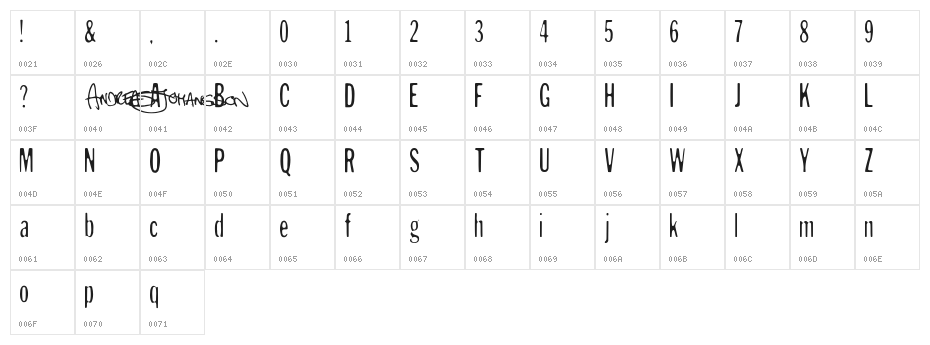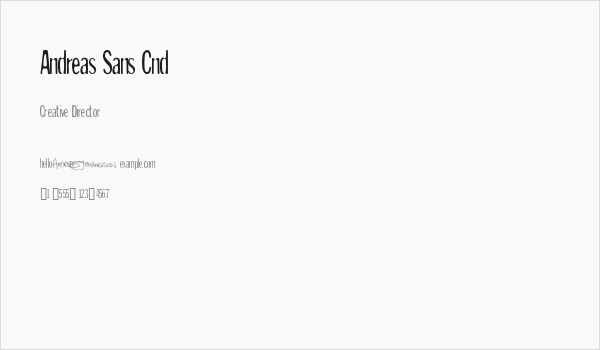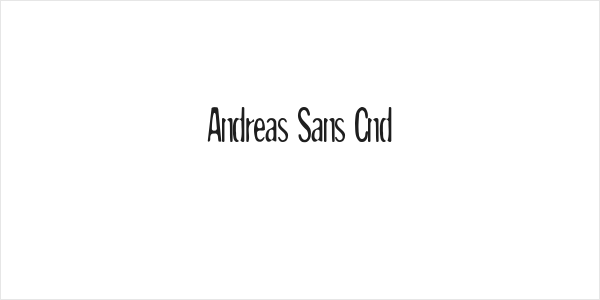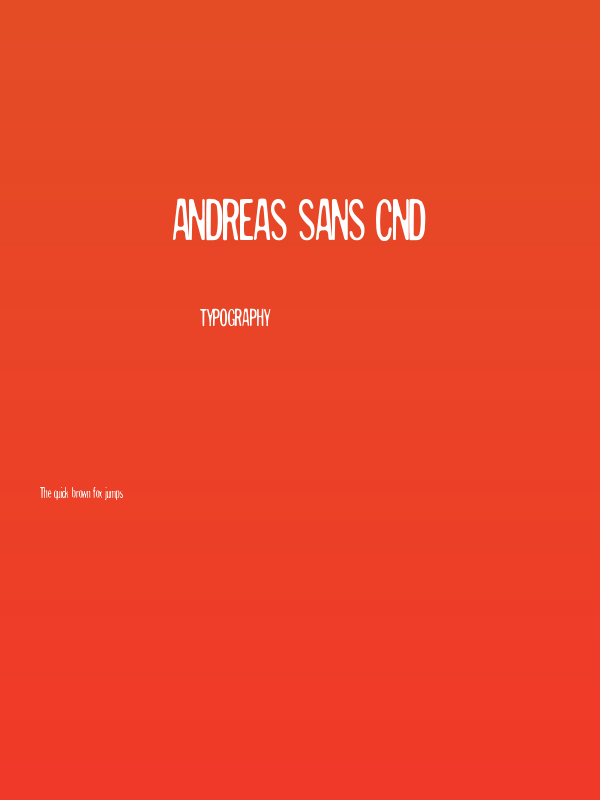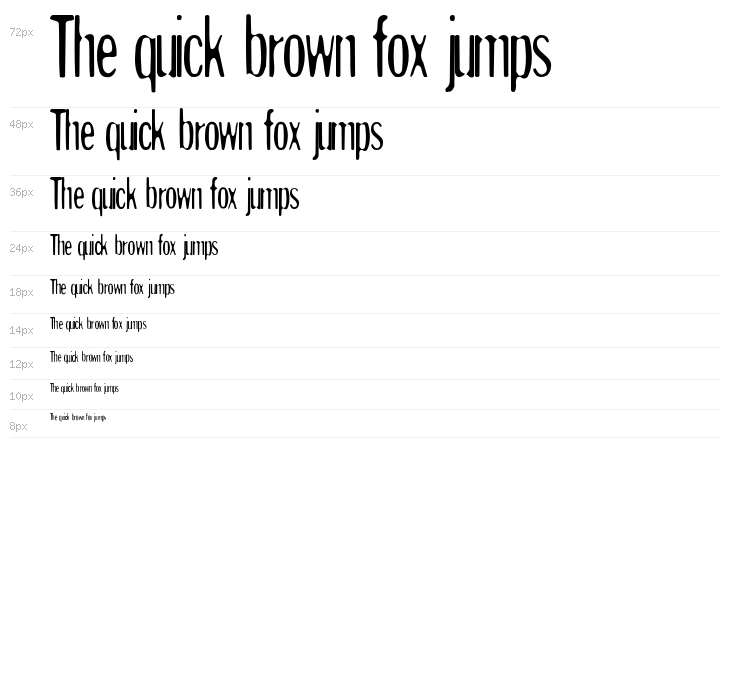
Andreas Sans Cnd Font
Andreas Sans Cnd Description
This font features a condensed sans-serif style with a modern and clean appearance. The uppercase letters are tall and narrow, providing a sleek and streamlined look. The lowercase letters maintain a consistent height, complementing the uppercase with a slightly playful touch due to their rounded forms. The numerals are uniform in height and width, ensuring readability and balance. Special characters are designed to match the overall aesthetic, with a focus on clarity and simplicity. The font's condensed nature makes it ideal for space-saving applications while retaining legibility.
| Proposed Projects | Ideal for branding, advertising, and editorial design where space is limited but impact is needed. |